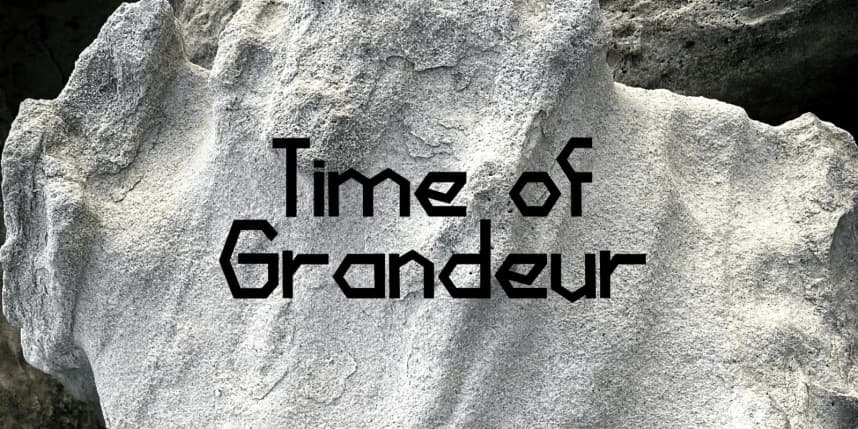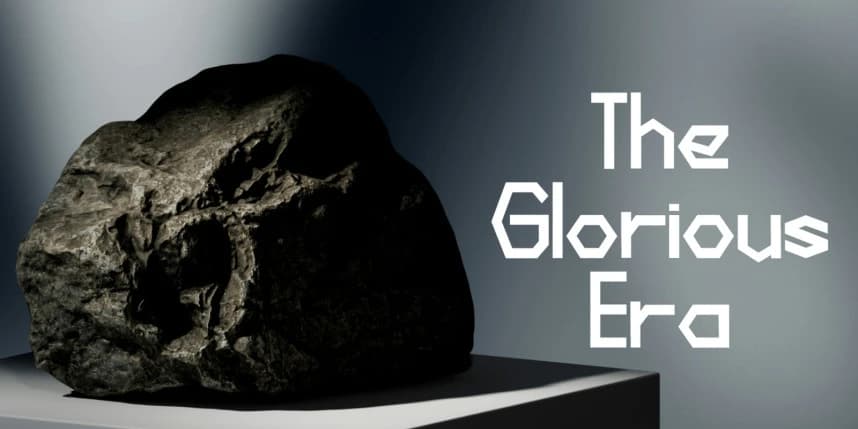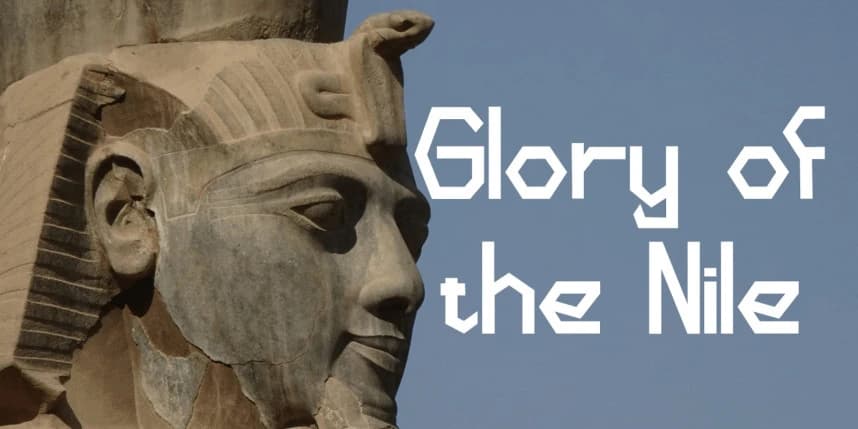
Firngaun Font
Firngaun Font embodies the timeless glory of Ancient Egypt. Inspired by the power and prestige of the Pharaohs, this typeface blends historical grandeur with modern elegance. Each curve and line reflects strength, dignity